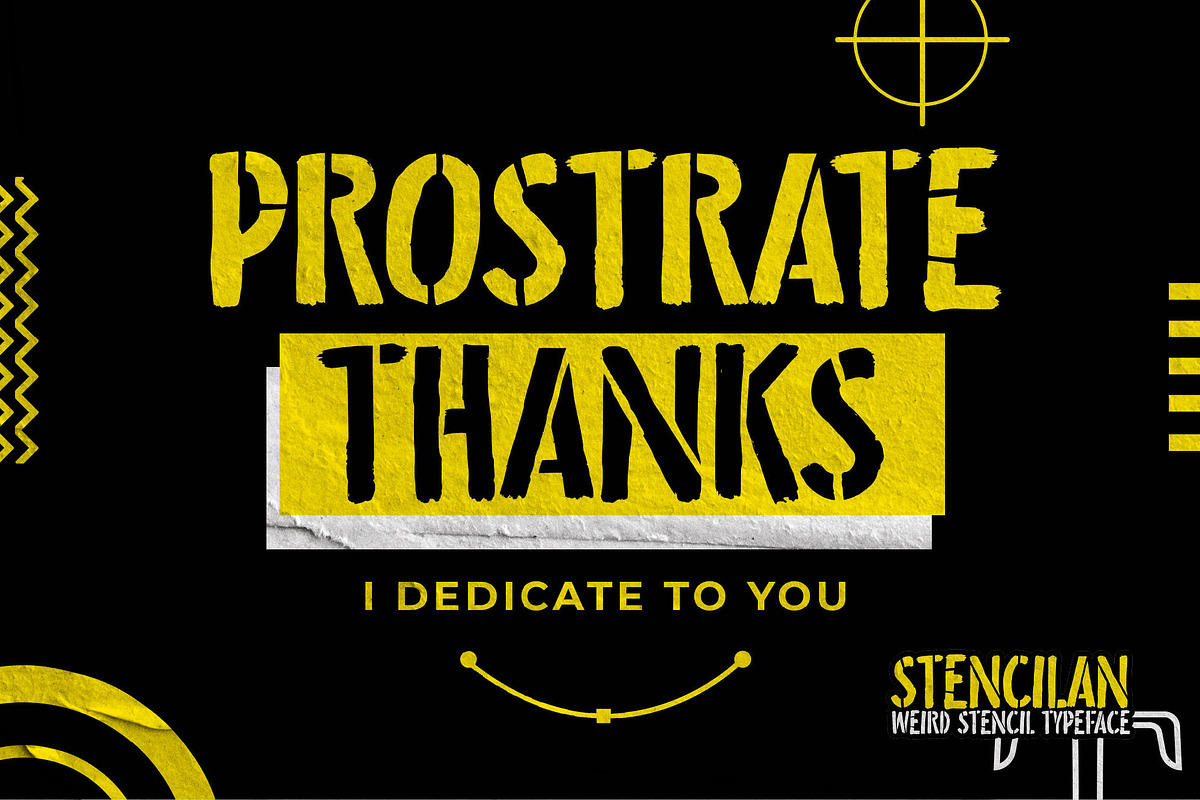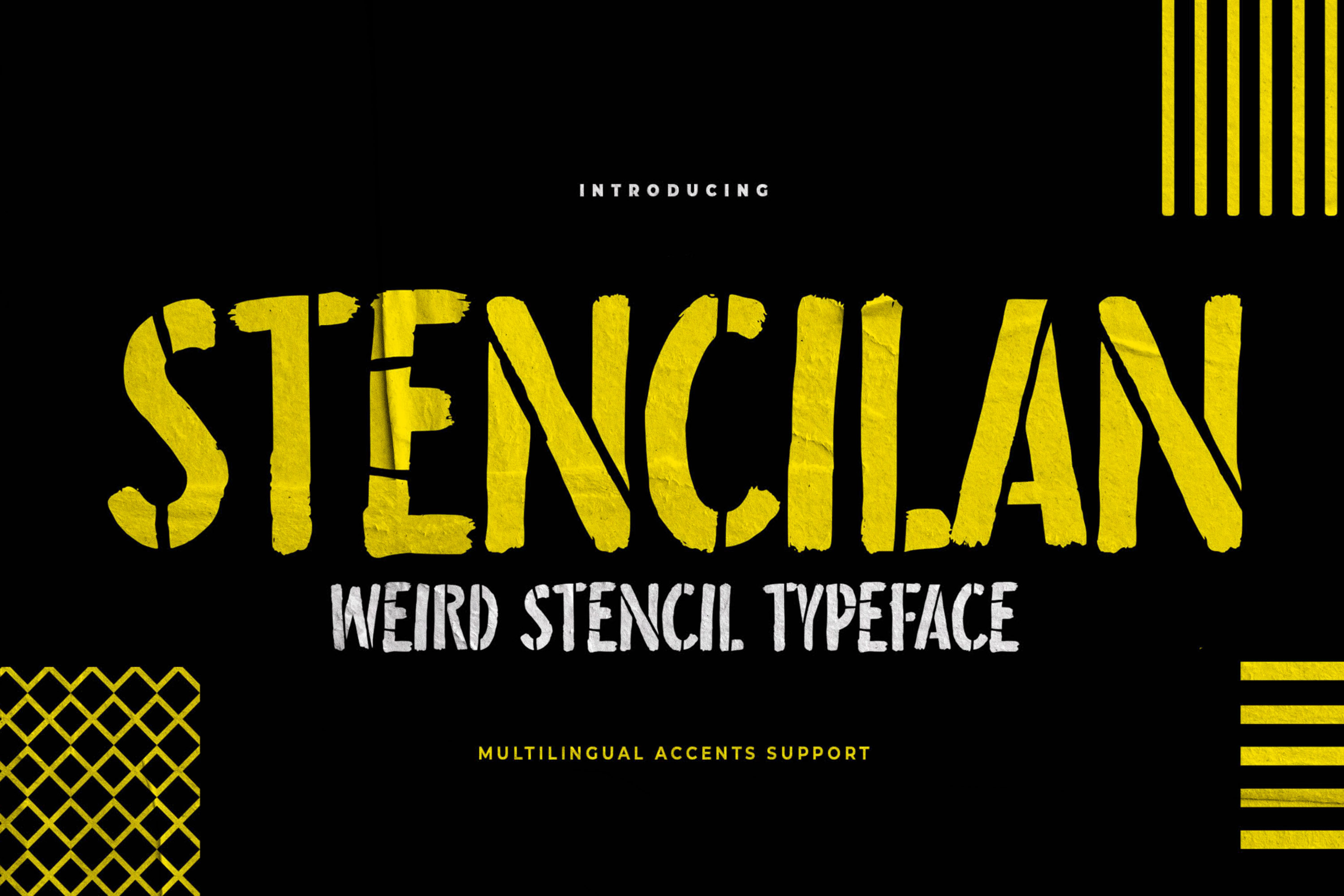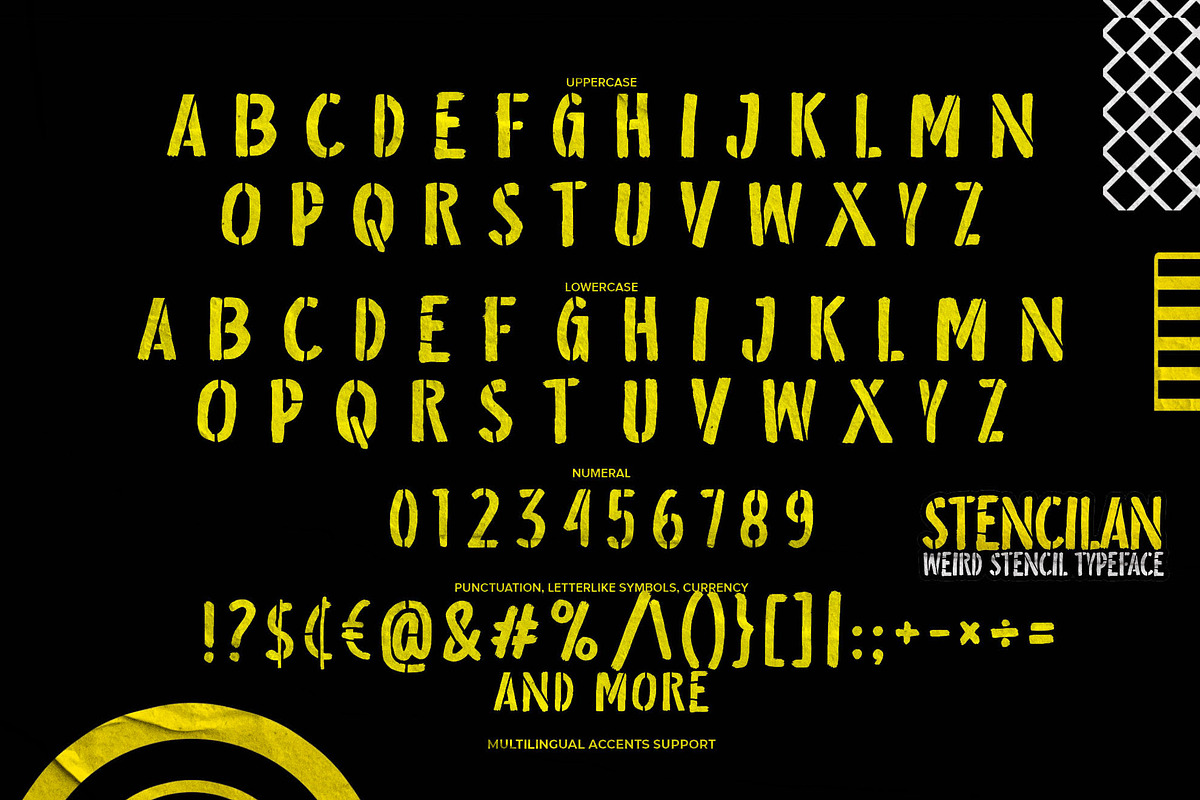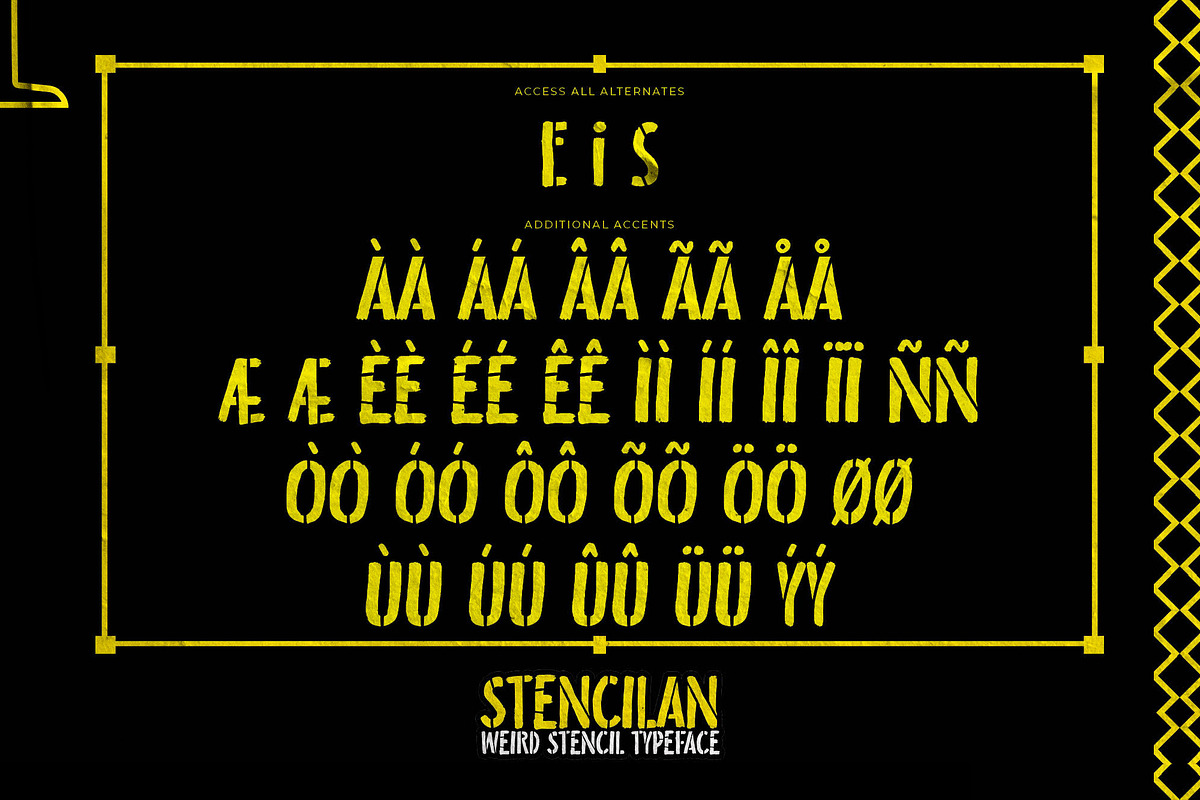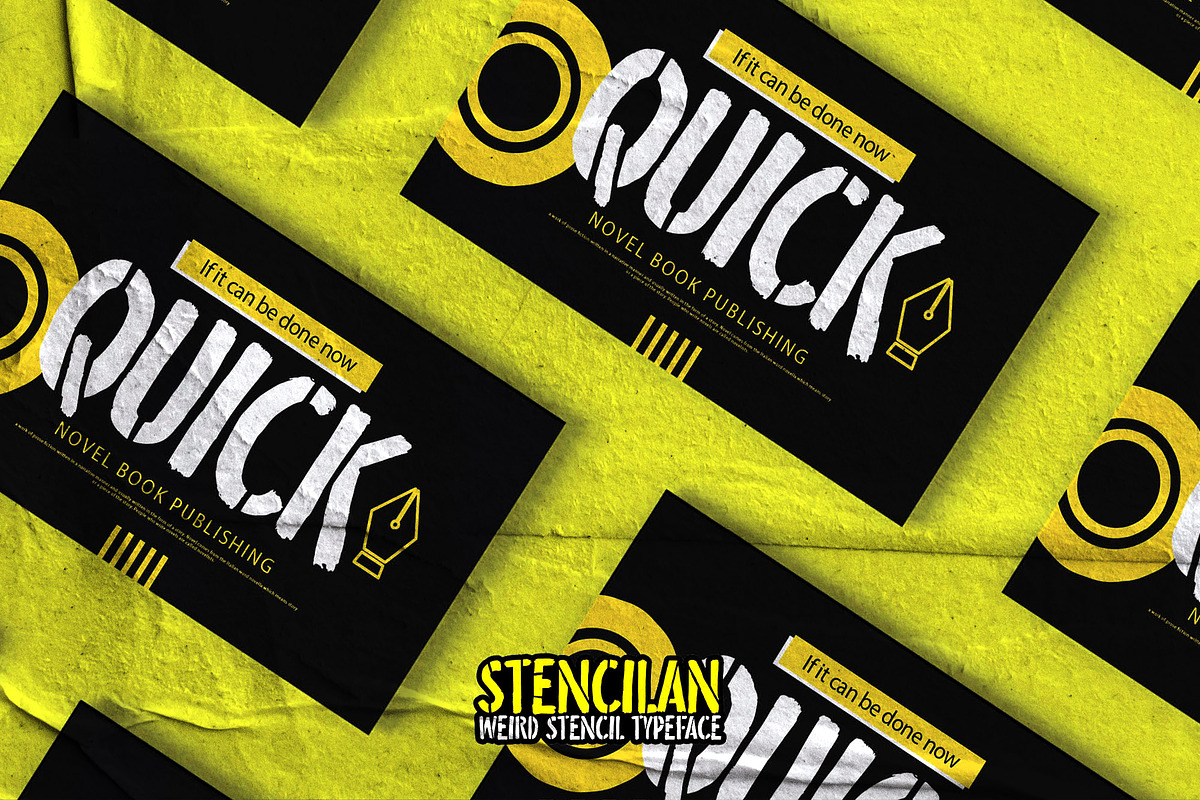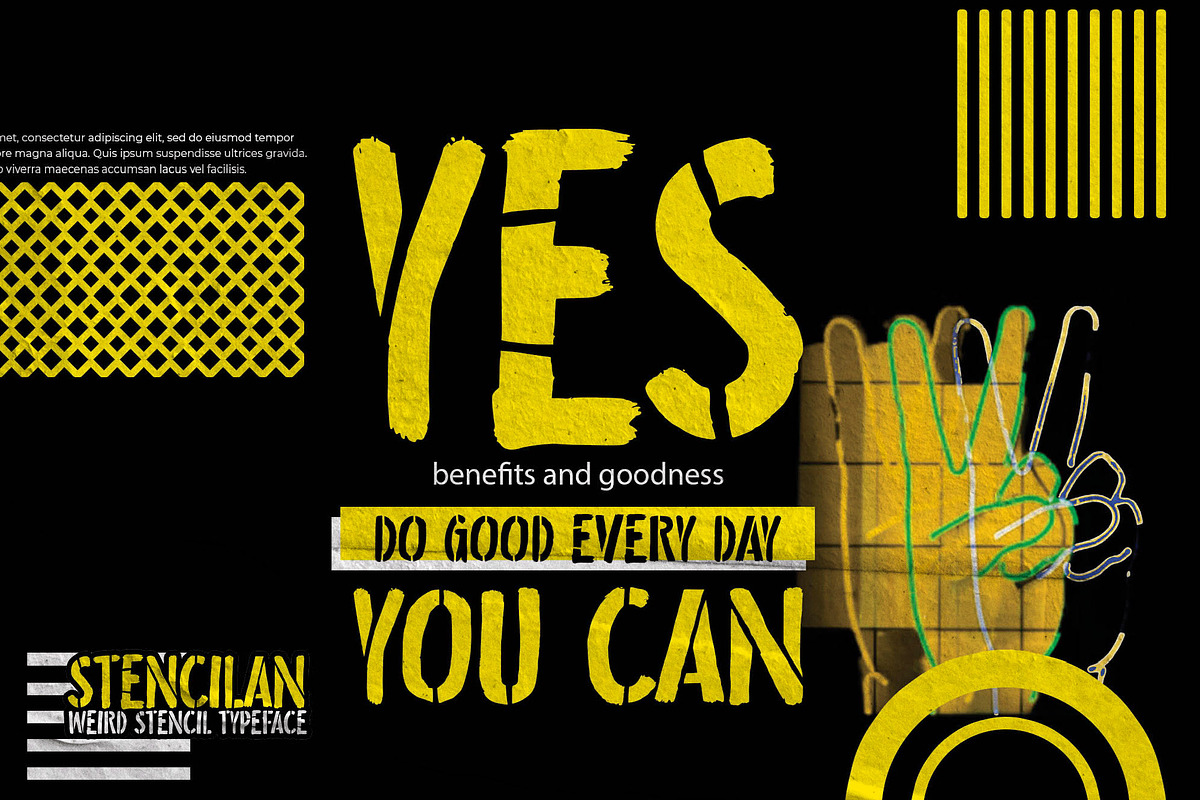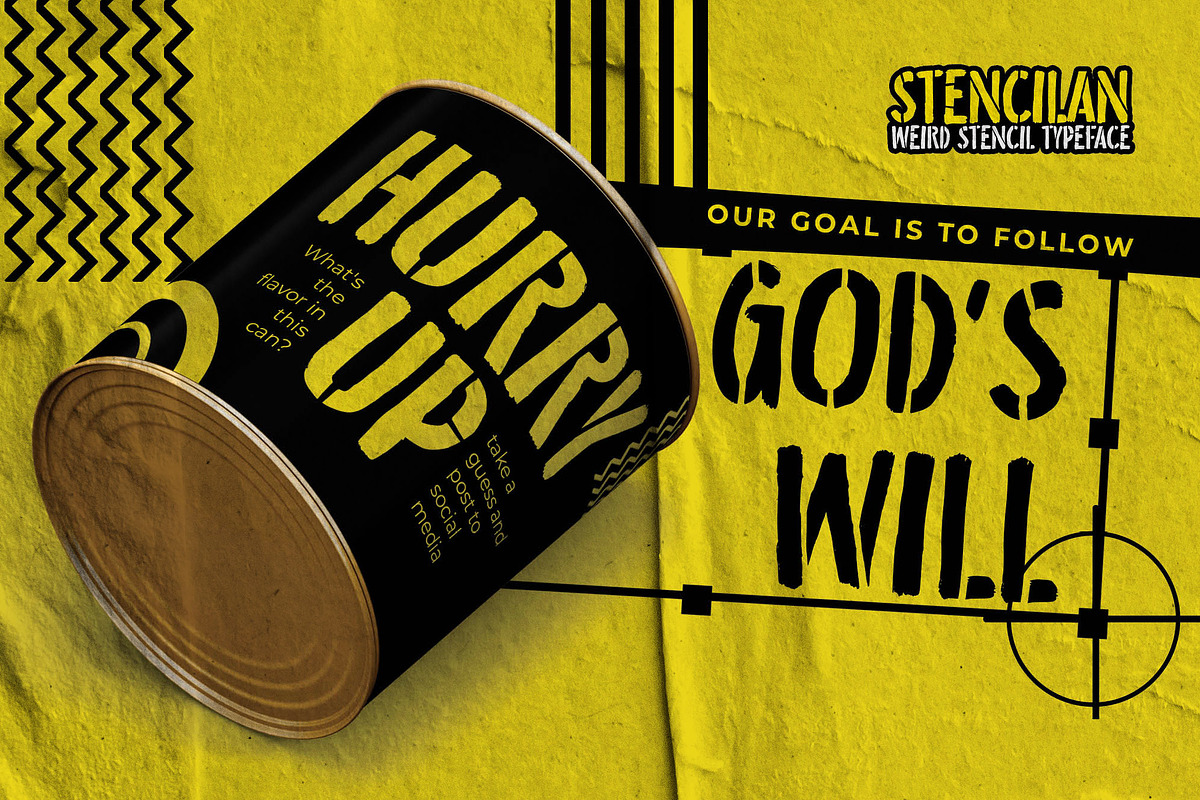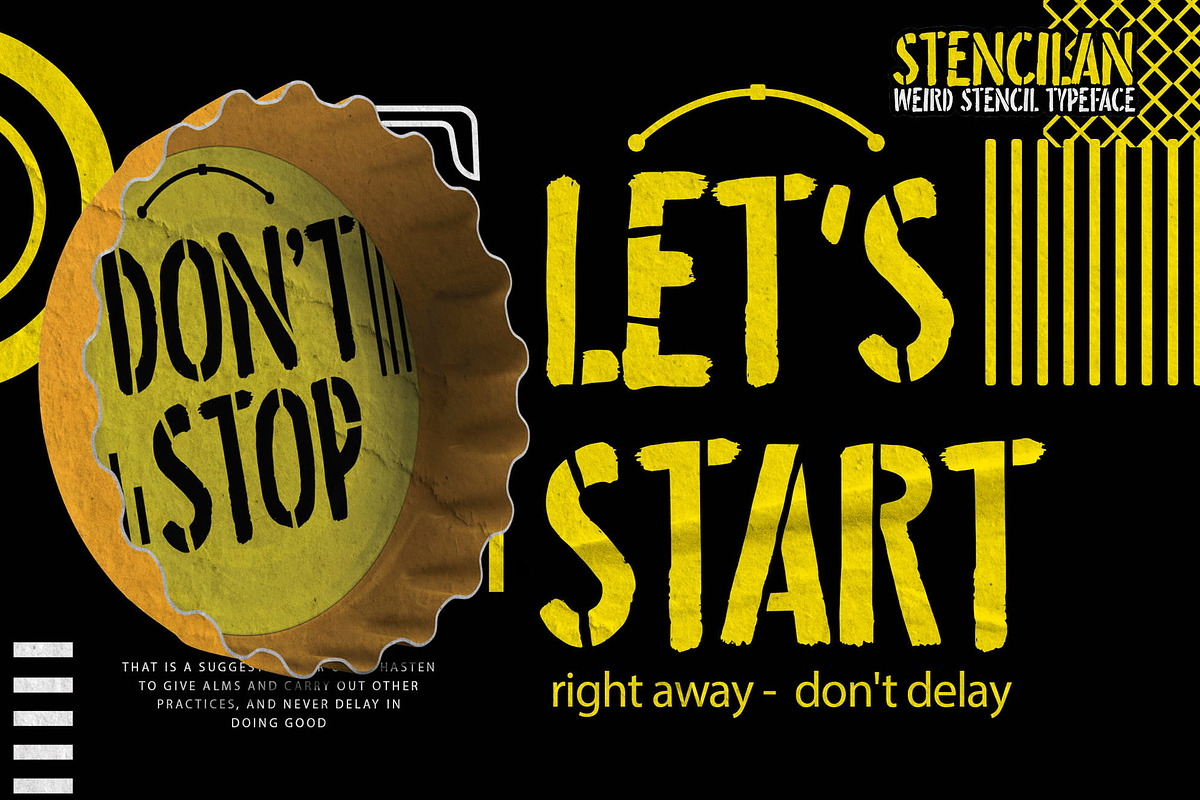
Stencilan – Weird Stencil Typeface
STENCILAN is a unique and expressive stencil typeface crafted with bold, raw, and hand-cut character. With its rugged textures, irregular cuts, and artistic imperfections, STENCILAN brings an edgy, industrial, and creative vibe perfect for projects that aim to stand out with a strong, experimental visual identity.
Designed with a handcrafted, urban feel, each letter delivers a powerful and artistic presence, making STENCILAN an ideal choice for designs that embrace street-style aesthetics, alternative layouts, and bold display headlines.
Great for:
• posters & event covers • alternative branding & logos • band merchandise & streetwear • book covers & indie zines • bold editorial layouts • creative product packaging • social media graphics • artistic display headlines
Style & Feel:
weird • bold • stencil • raw • artistic • expressive • urban